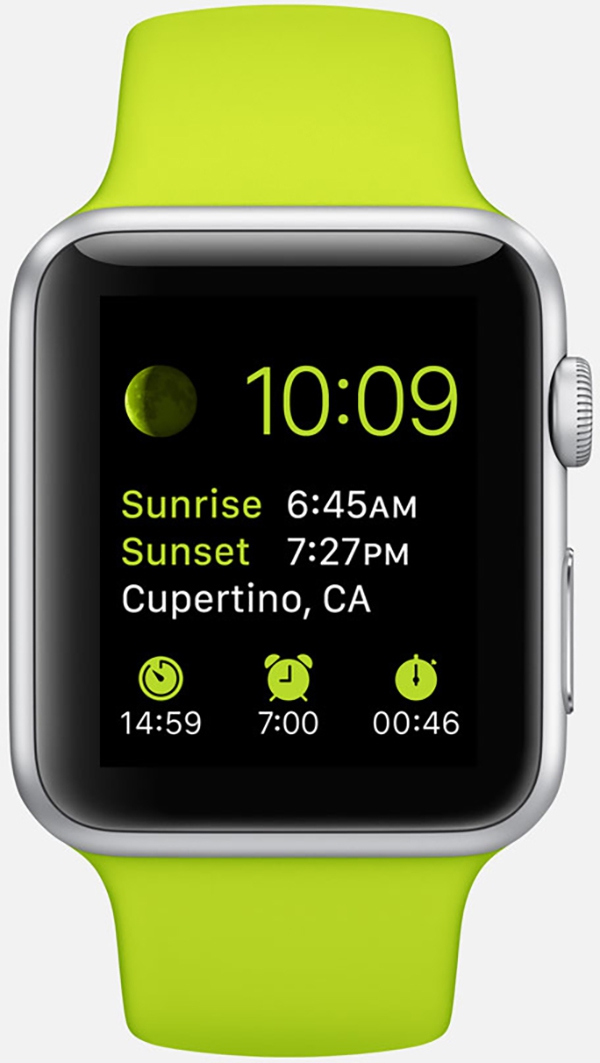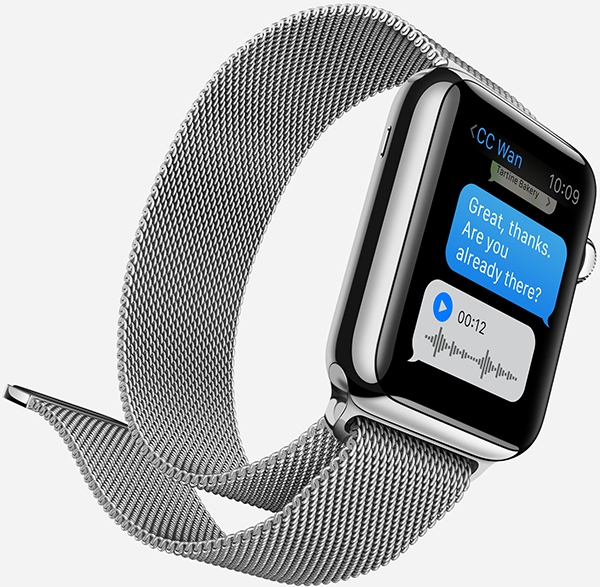
Apple Watch Sports New Custom Typeface
Production in the creative realm slowed to a crawl on Tuesday, September 9th as designers, photographers, techies, and the entire population of Apple fanboys—and fangirls—were glued to their computer screens to see what new goodies Apple would unleash during their media event. The rumored iPhone 6 and even the less-likely iPhone 6 Plus made their debut almost as soon as the keynote began. Fast forward an hour or so to a familiar and newly-resurrected phrase, “One more thing.” Apple unveiled the nearly mythical Apple Watch. After all the drooling and cooing over the new wearable receded, the creative blogoshpere started buzzing about a feature that wasn’t even mentioned. The Apple Watch interface sports a completely new typeface.
Apple is keeping very tight-lipped about the typeface, except to briefly state, “We even developed a new typeface to maximize legibility.” The company is no stranger to typeface creation, though the last Apple-designed font was 2009’s Menlo which shipped with OS X Snow Leopard. This as-of-yet-unnamed typeface has similarities to—and most certainly, roots in—FF DIN which was also created for maximum legibility at small sizes.
The mystery face doesn’t have a traditional Apple feel to it, but then Apple has never released a wrist-bound computer before. Similarities exist between it and Roboto, the Google-designed Android font, which is enough to make any Apple fanboy bristle. I’ve read that it’s not “sophisticated enough” for Apple. I think comments like that miss the point, though. Form that enhances function is paramount for a typeface that will be displayed on a small device, while conveying info quickly to a user that is as likely to be jogging as sitting at a desk. As with most things Apple, some people will love the Apple Watch typeface, others will hate it. One thing for certain is that the creative corners of the internet will be abuzz for some time about the newest gadget and whether or not Apple has a winner on its hands (or wrists).
What do you think of the Apple Watch typeface? What other typefaces does it remind you of? Did Apple hit or miss with the custom typeface?